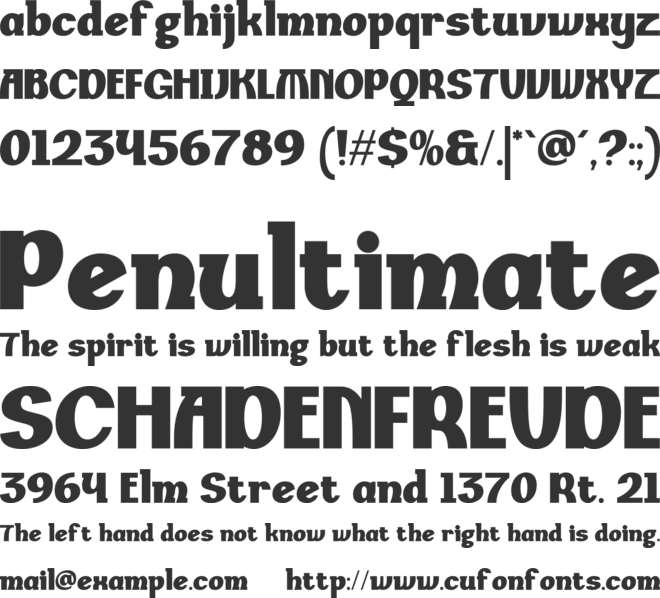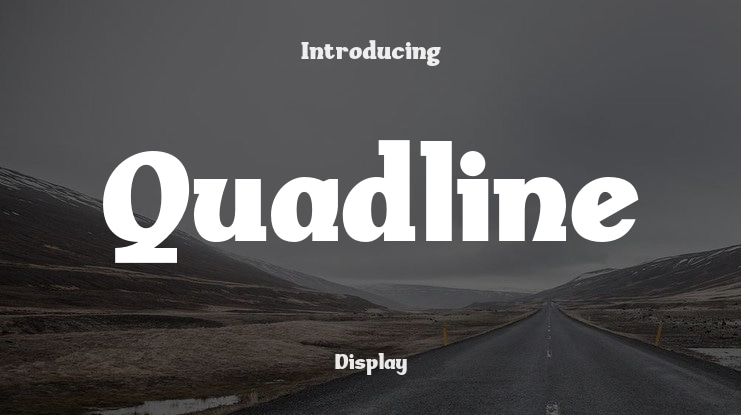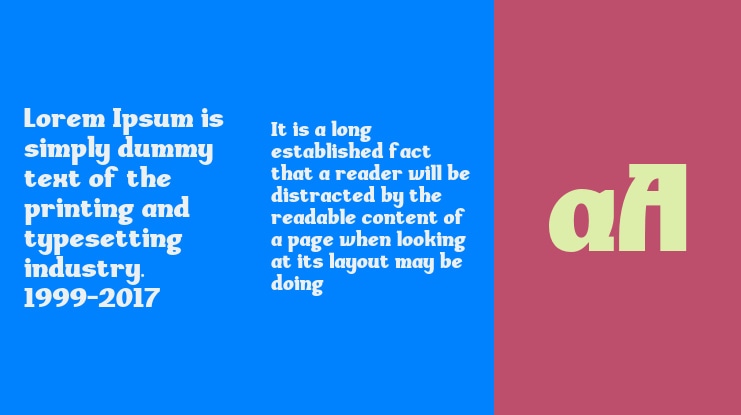
Quadline Font Family
Quadline a bold sans serif font built for strength and versatility. Perfect for headlines, posters, branding projects, and editorial layouts, Quadline’s bold and commanding design captures attention while maintaining readability. Its clean yet striking style makes it ideal for projects that need a powerful visual presence.
This versatile typeface offers:
Regular and Oblique styles, ensuring flexibility for any design.
A retro-modern aesthetic that brings a nostalgic yet contemporary feel to your projects.
Uppercase & Lowercase
Numbers & Punctuation
Multilingual Support